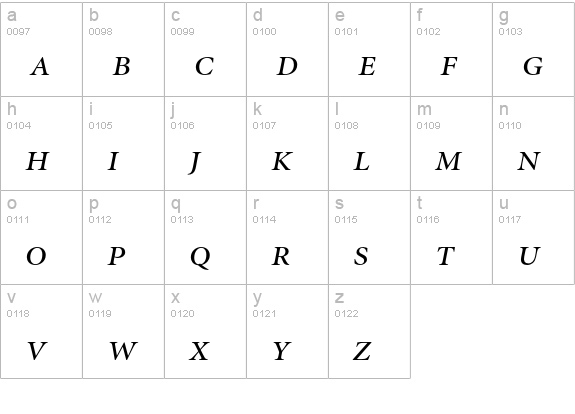
Minion Italic Display Small Caps & Oldstyle Figures Font Details
Minion Italic Display Small Caps & Oldstyle Figures is a distinctive, italic variant in the Minion typeface family \xE2\x80\x94 well suited to design and typography projects.
Introducing Minion Italic Display Small Caps & Oldstyle Figures font - a versatile and elegant typeface perfect for adding a touch of sophistication to your designs. This font combines the classic appeal of small caps with the unique flair of italic display, creating a harmonious balance that is both stylish and functional. The oldstyle figures add a vintage charm to the overall look, making it a timeless choice for a wide range of projects. Best of all, this font is available for free download at FontsMarket.com. Whether you're working on a branding project, editorial layout, or any other design endeavor, Minion Italic Display Small Caps & Oldstyle Figures font is sure to elevate your work to the next level. Don't miss out on this opportunity to enhance your designs with this beautiful and versatile typeface. Download it today and start creating with style and sophistication.